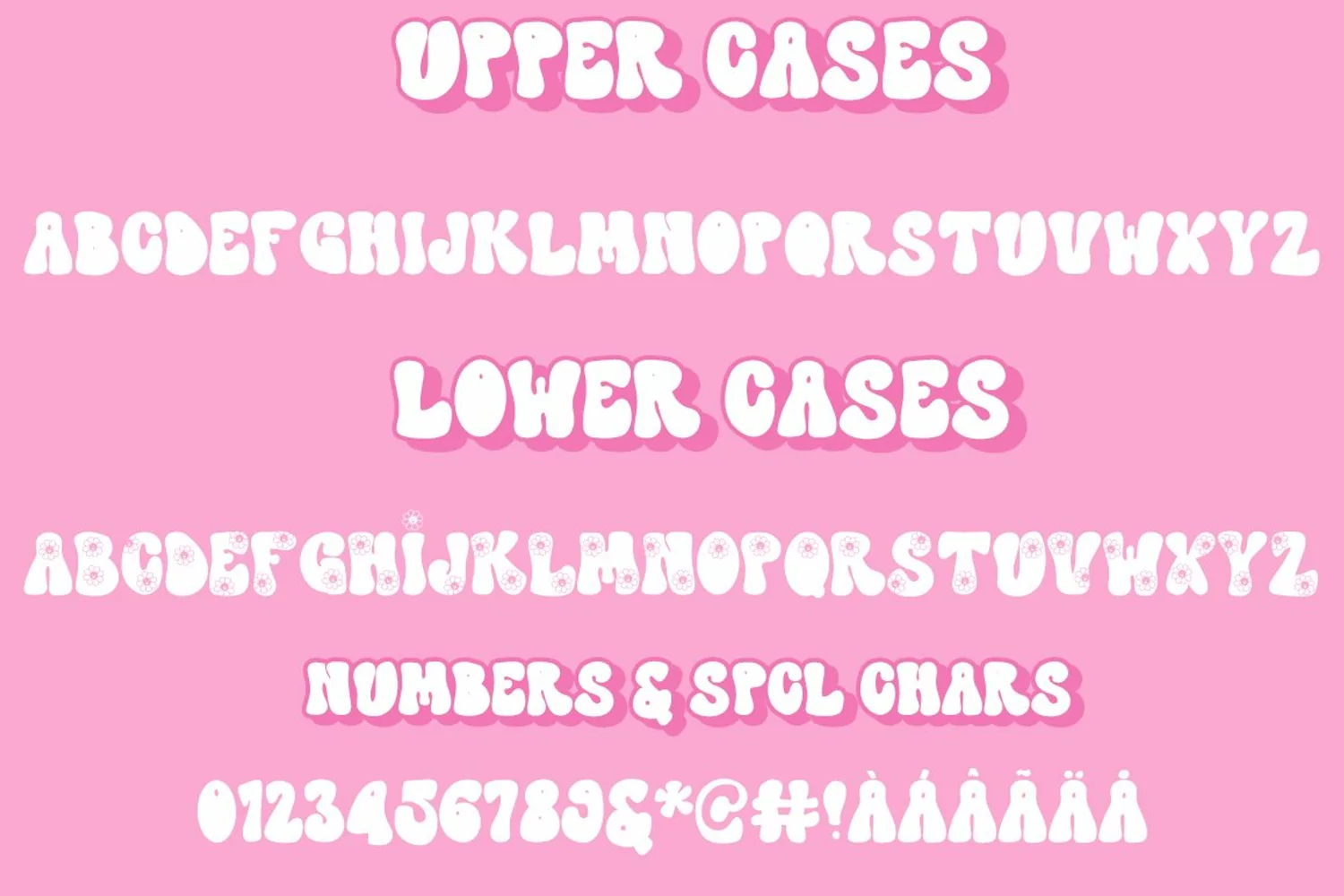
Daisy Bell is a retro inspired fun font perfect to use for all your DIY projects and crafts. Channel your inner hippie when you are using the font to create a perfect design.